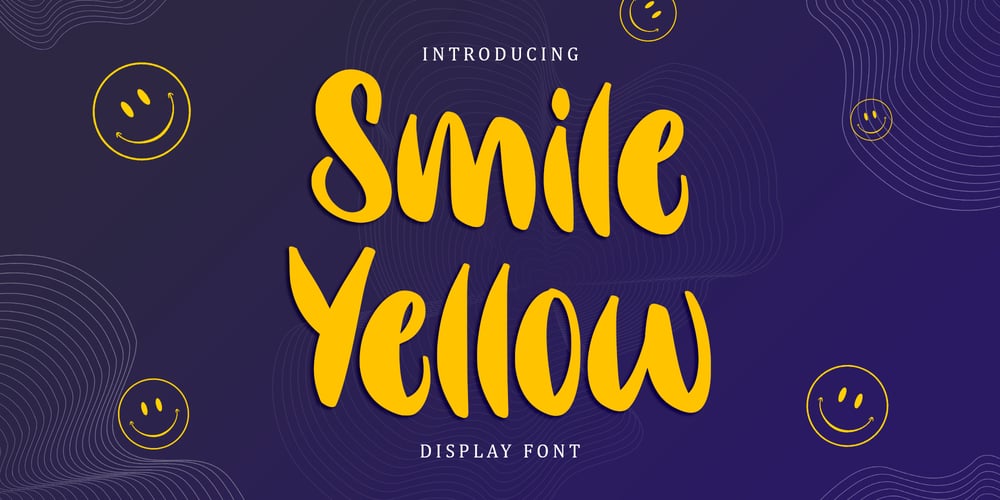
Smile Yellow Font Family was designed by Alif Ryan Zulfikar and published by Sakha Design. Smile Yellow contains 2 styles and family package options. Smile Yellow is is a cute and colorful display font. It embodies playfulness and authenticity and is the perfect choice for any children activity or school project. Add this chunky lettered font to your designs and notice how it makes them come alive!